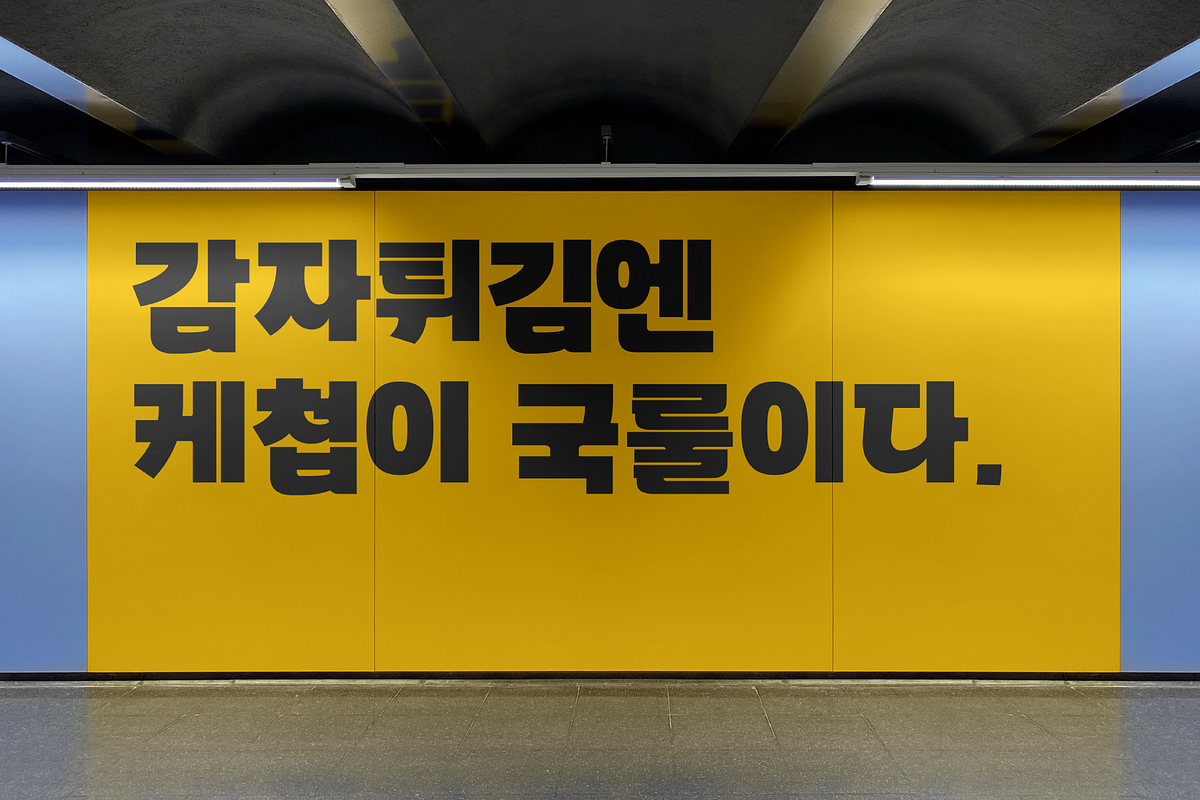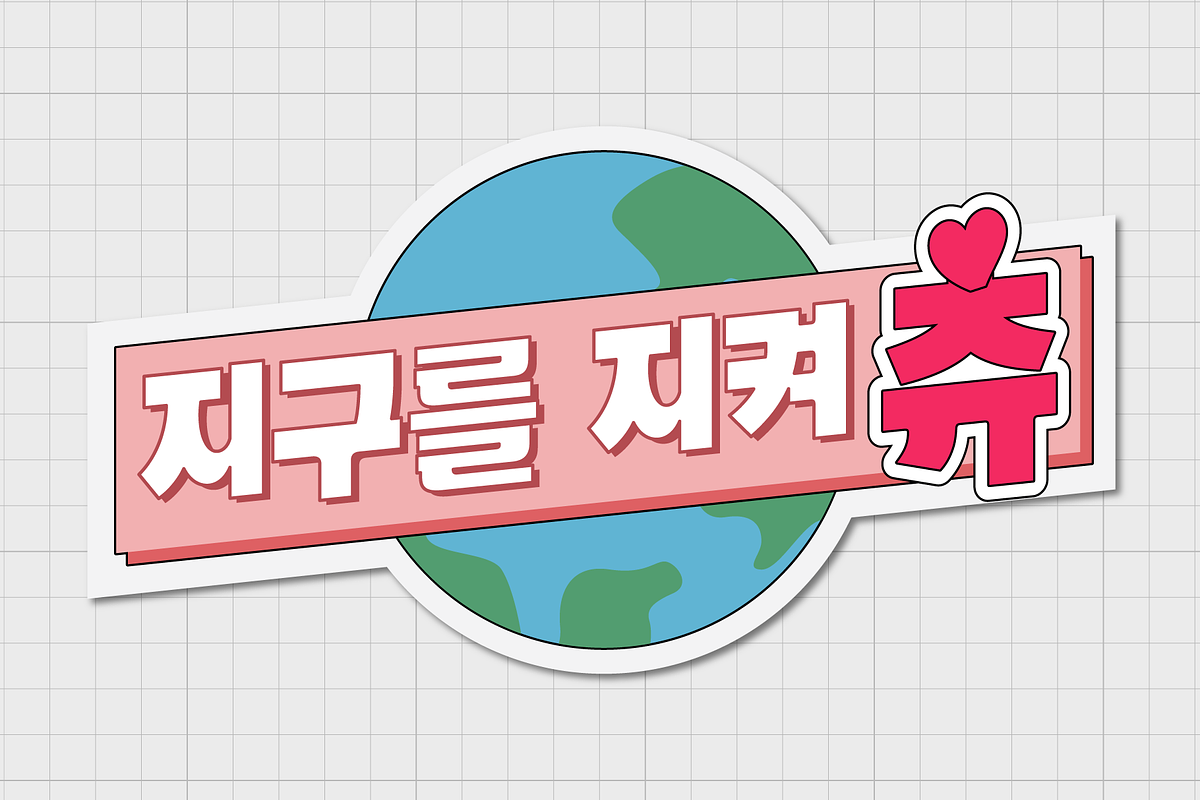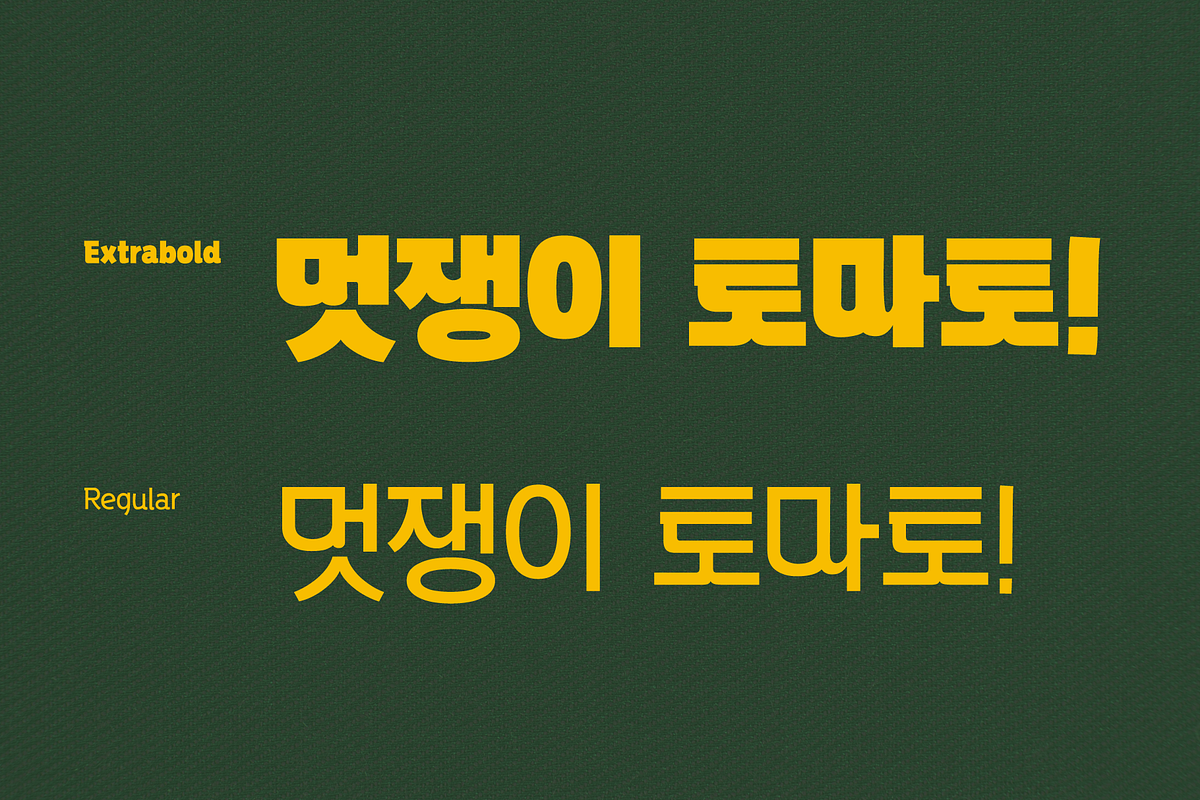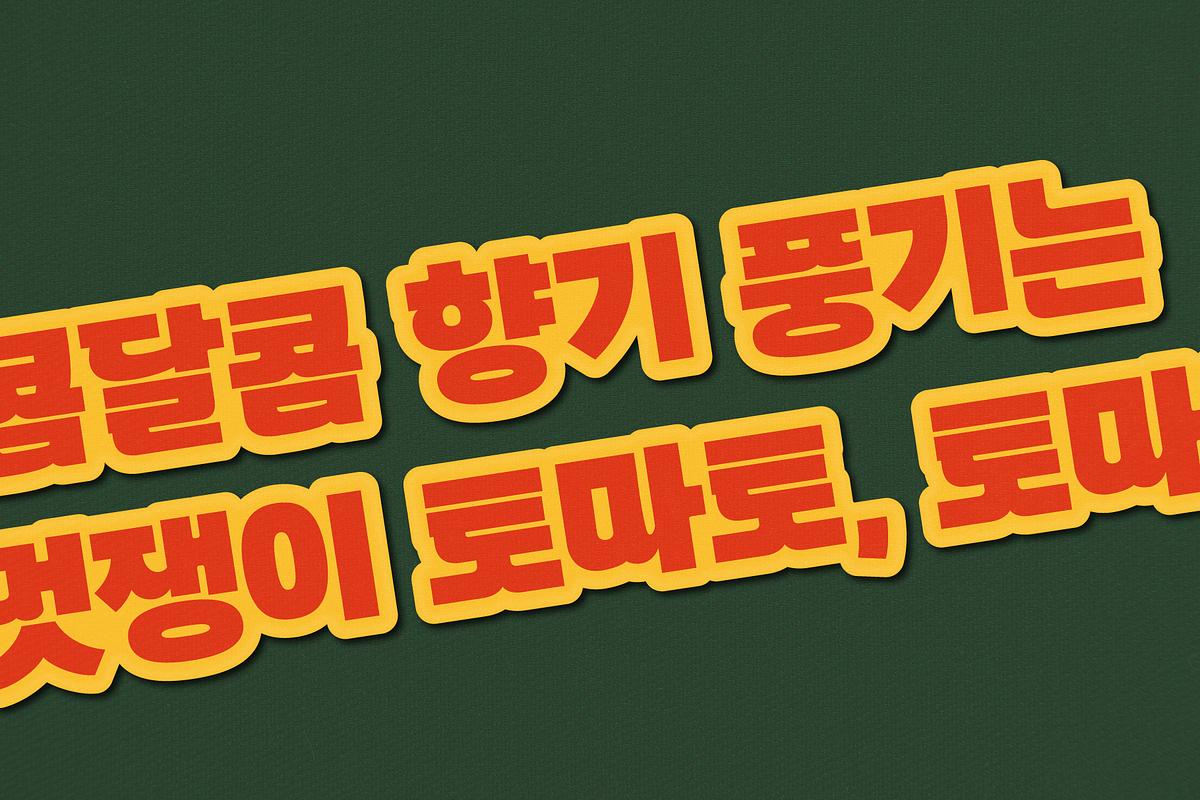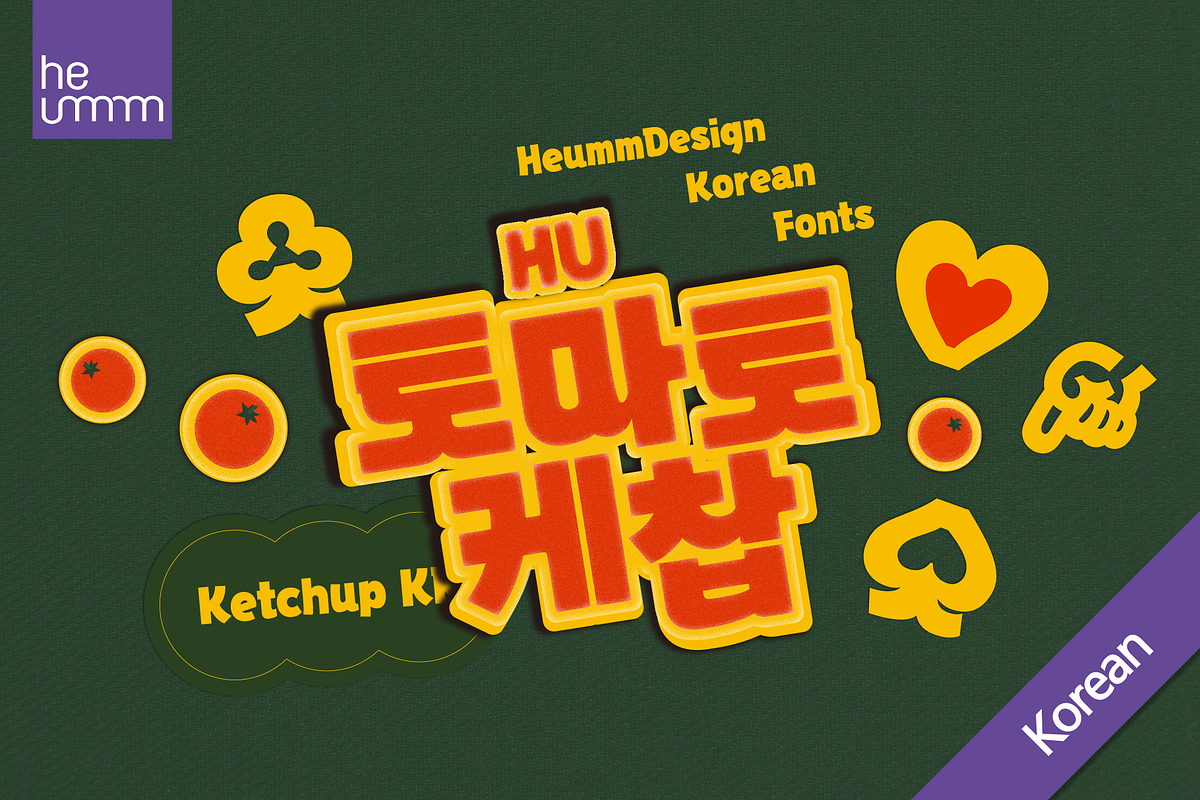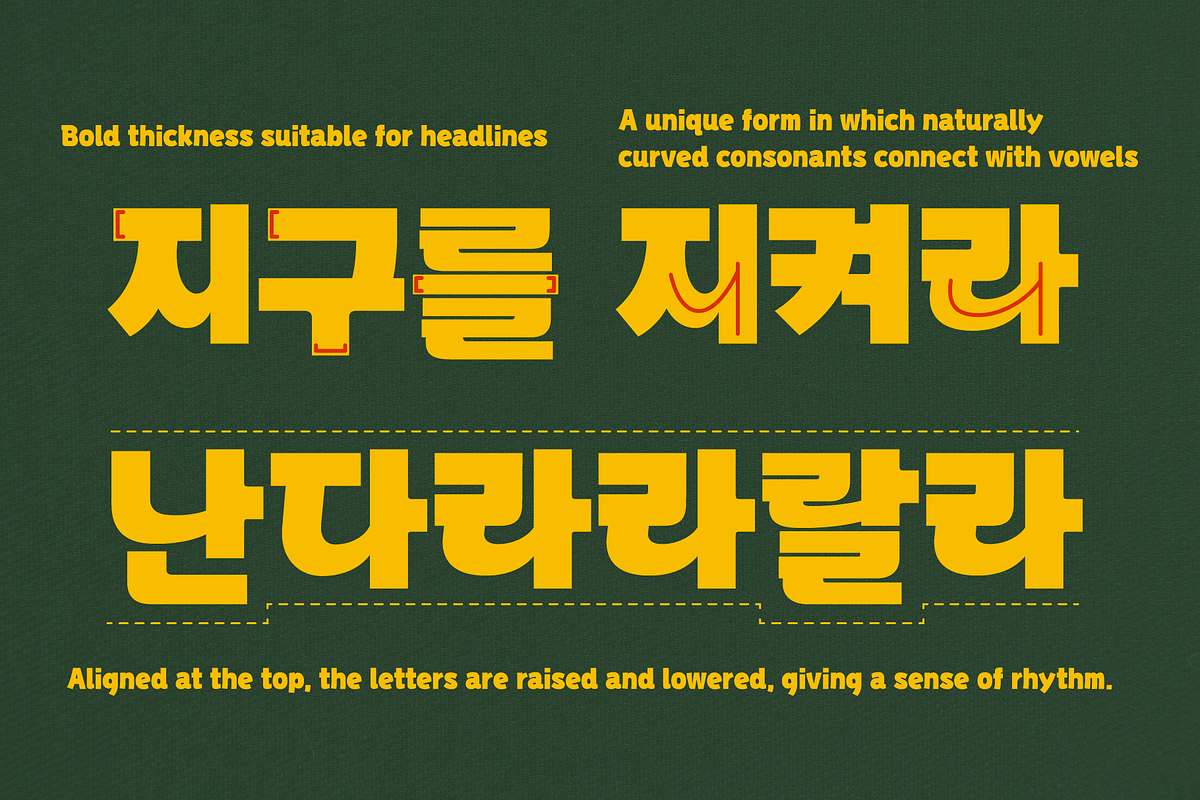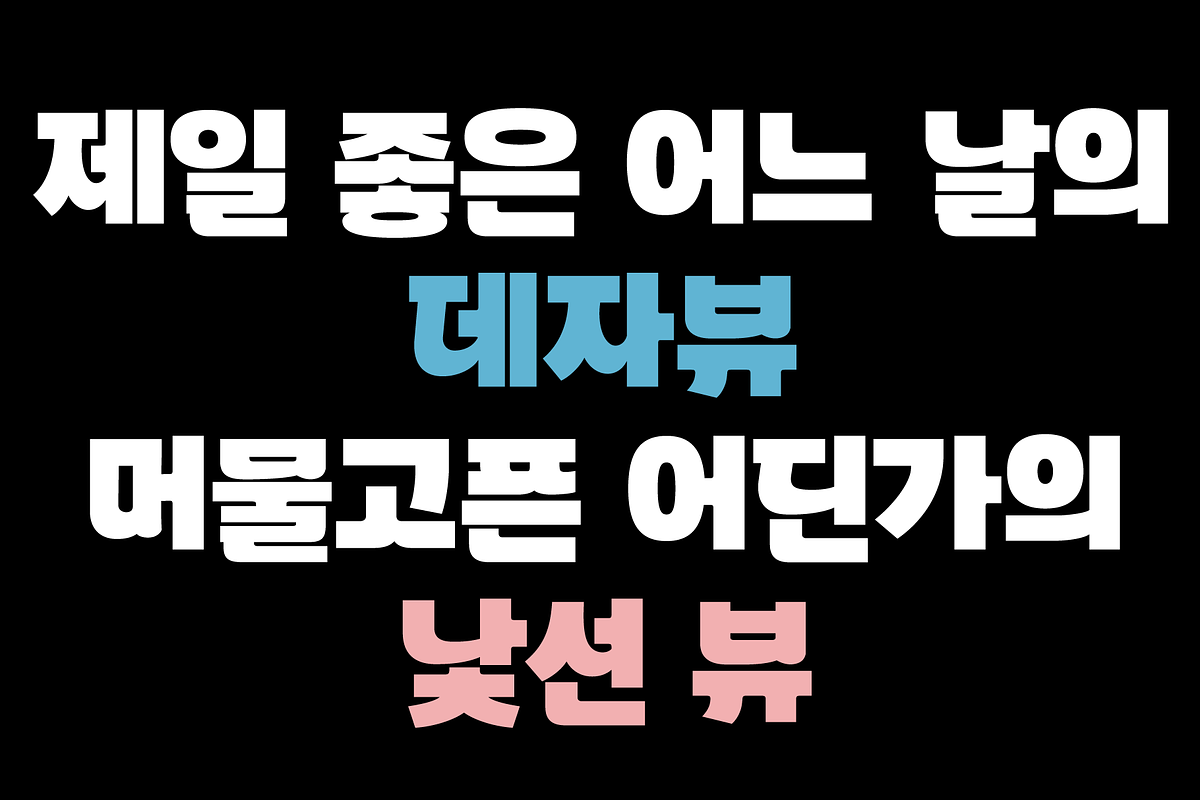
HU Ketchup KR is a bold headline typeface that showcases a unique and playful style.
The natural connection between the strokes of consonants and vowels adds writing strength, while the design of vowels 'ㅗ, ㅛ' resembling consonant 'ㅅ' infuses the font with personality and a cute feel. With its inclusion of Korean characters, HU Ketchup KR is perfect for projects that require a fun and distinctive touch in both Korean and Latin scripts.
There is 2 weight of HU Ketchup KR : Regular, ExtraBold